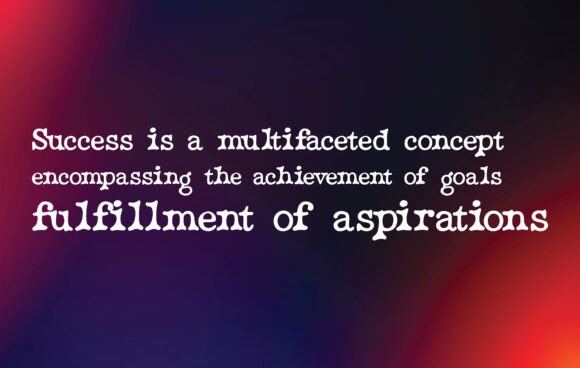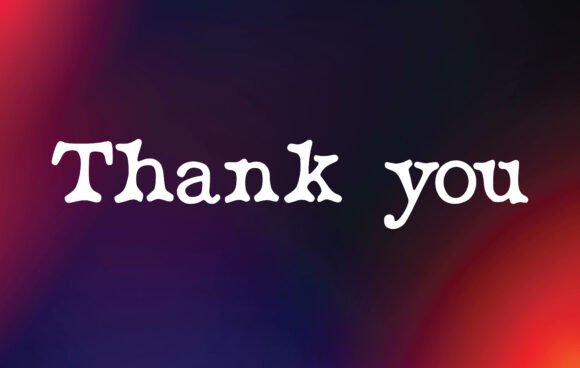
Introduction to Kenji Font
Have you ever stared at a blank canvas, feeling the creative juices flowing, but struggling to bring your vision to life? That’s where the right design resource can make all the difference. For designers, the perfect font can be the game-changer that elevates a project from good to great. And, if you’re looking for a font that can take your creative ideas to new heights, look no further than the Kenji Font.
With its lovely and beautiful serif design, Kenji Font is the perfect choice for creating eye-catching logos, branding, and quotes. Whether you’re working on a high-profile project or a personal creative endeavor, this font has the potential to add a touch of sophistication and elegance to your work.
Key Features of Kenji Font
- Kenji Font offers a unique blend of modern and traditional design elements, perfect for adding a touch of sophistication to any project.
Honest Review: Kenji Font
As a designer, I’m always on the lookout for high-quality design resources to elevate my creative projects. Recently, I came across the Kenji Font, and I’m excited to share my honest review with you.
What works well with the Kenji Font is its modern and sleek aesthetic. The font’s clean lines and minimalist design make it perfect for use in a variety of creative projects, from branding and marketing materials to digital products and websites.
- Modern and sleek aesthetic
While the Kenji Font is a great addition to any designer’s toolkit, there are some limitations to be aware of. The font’s character set is limited, which may not be ideal for designers working on projects that require a wide range of characters.
Overall, I’m impressed with the Kenji Font’s high-quality design and versatility. It’s a great resource for designers who want to add a modern touch to their creative projects. Just be aware of the limitations, and you’ll be good to go! ⚠️✨
Kenji Font is ideal for creative projects such as branding, logos, brochures, and social media graphics. Its unique characteristics make it perfect for designers looking to add a touch of elegance and sophistication to their work.